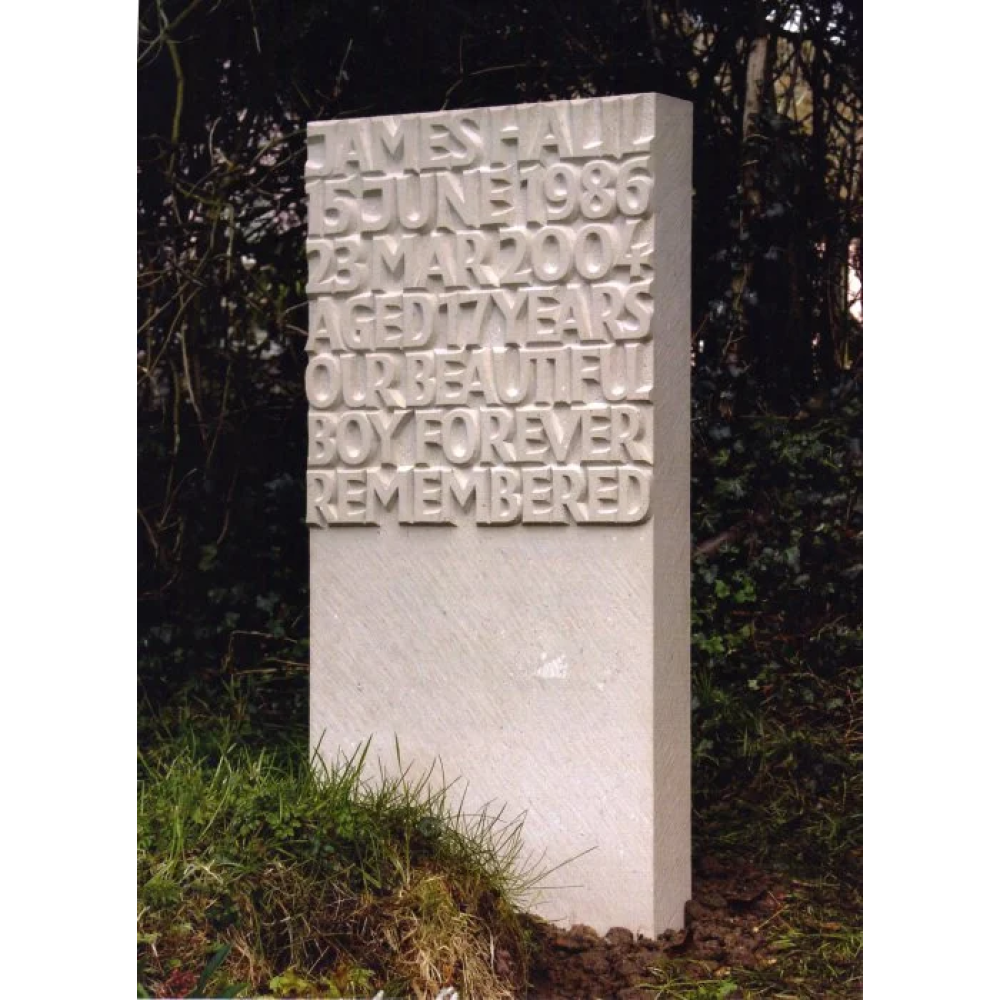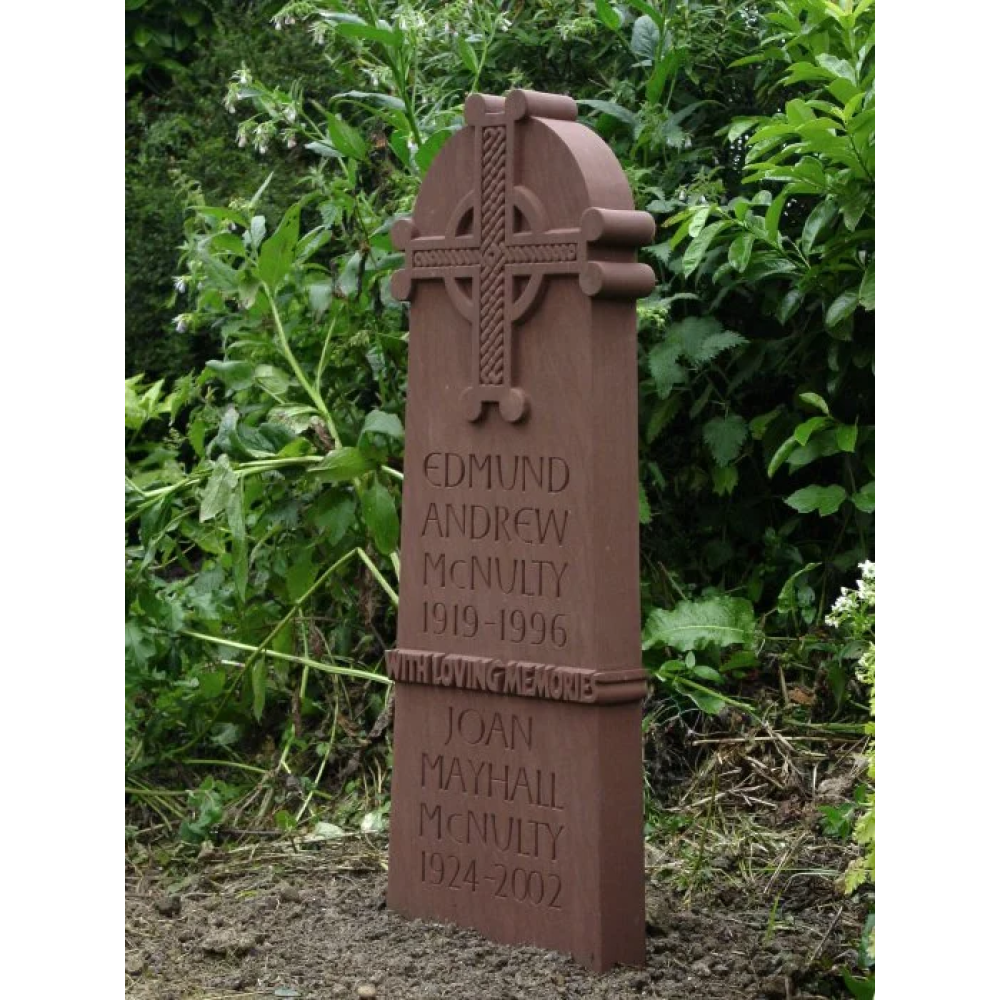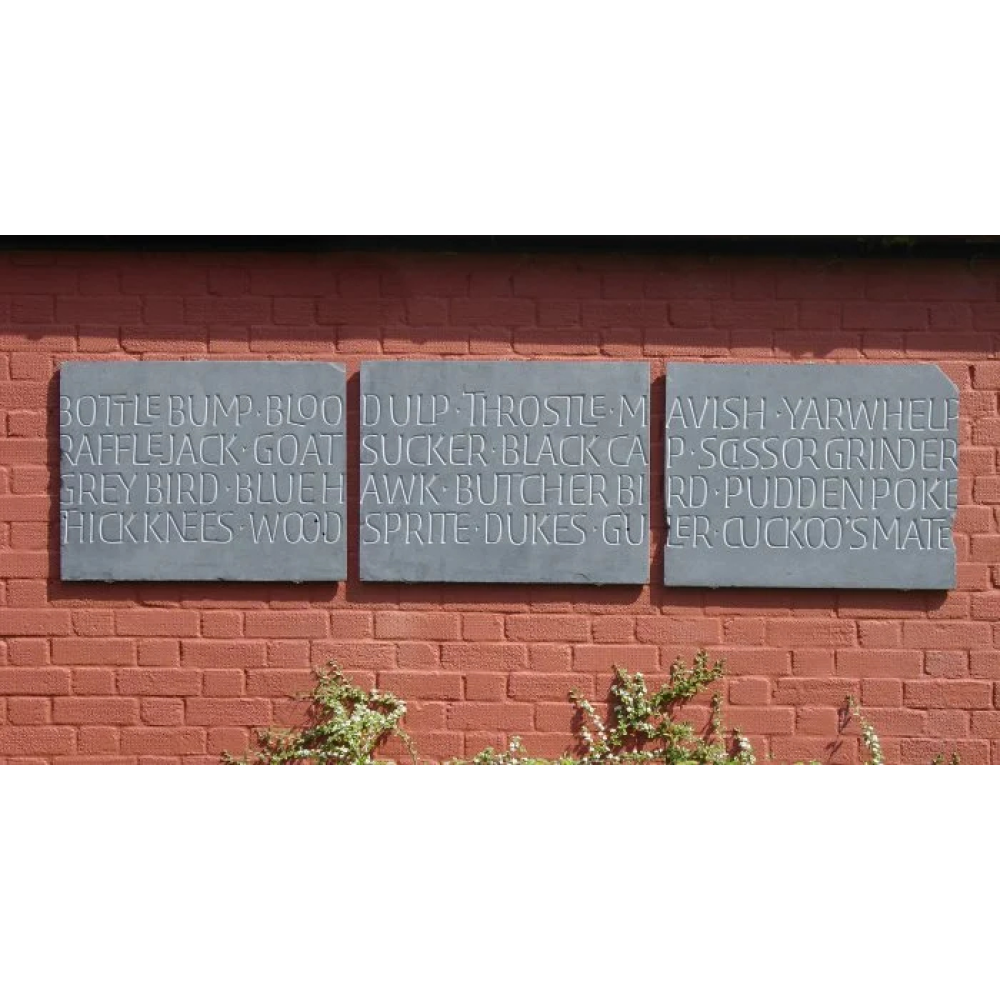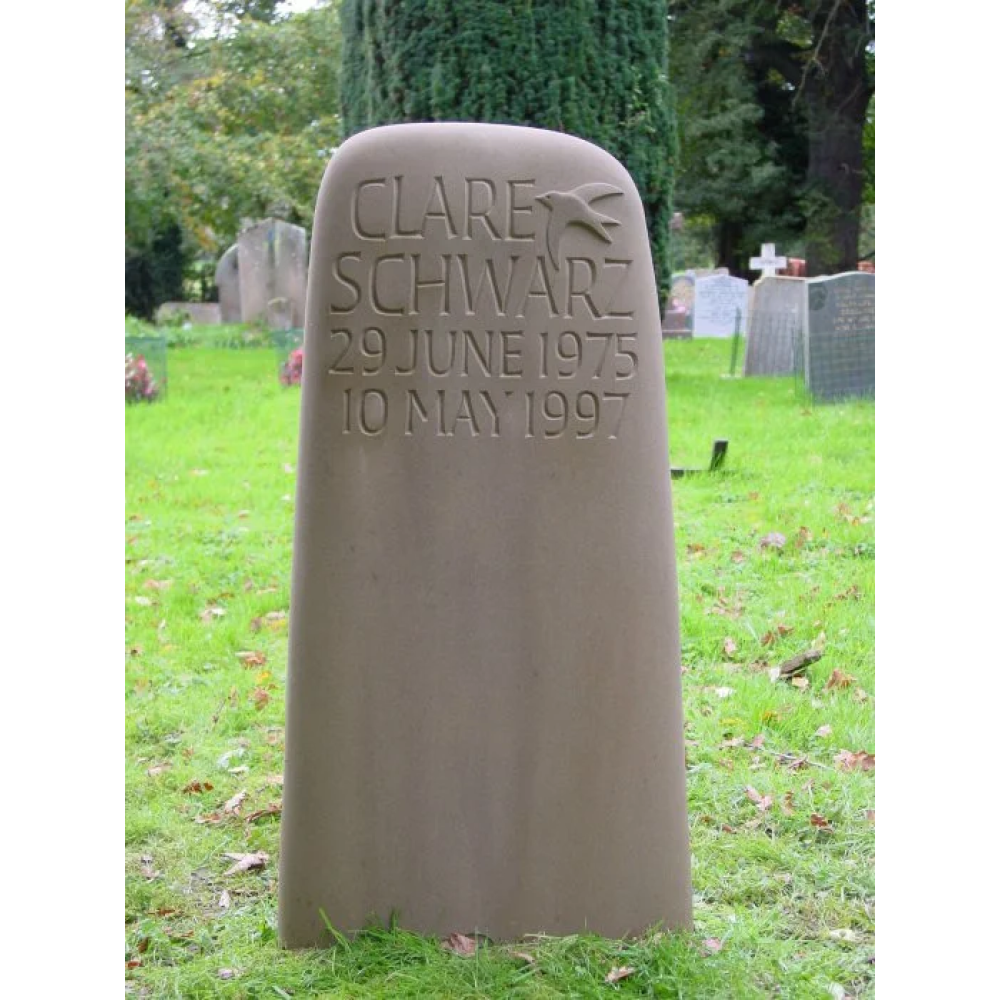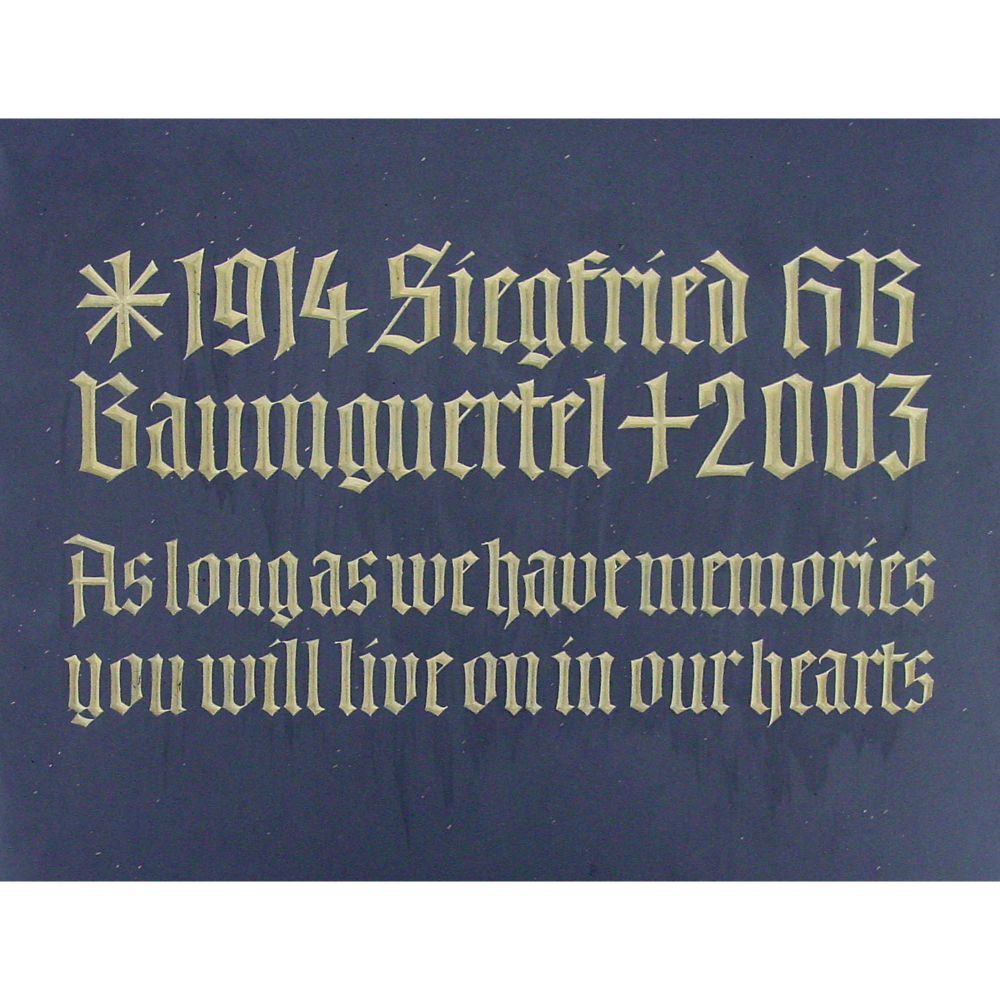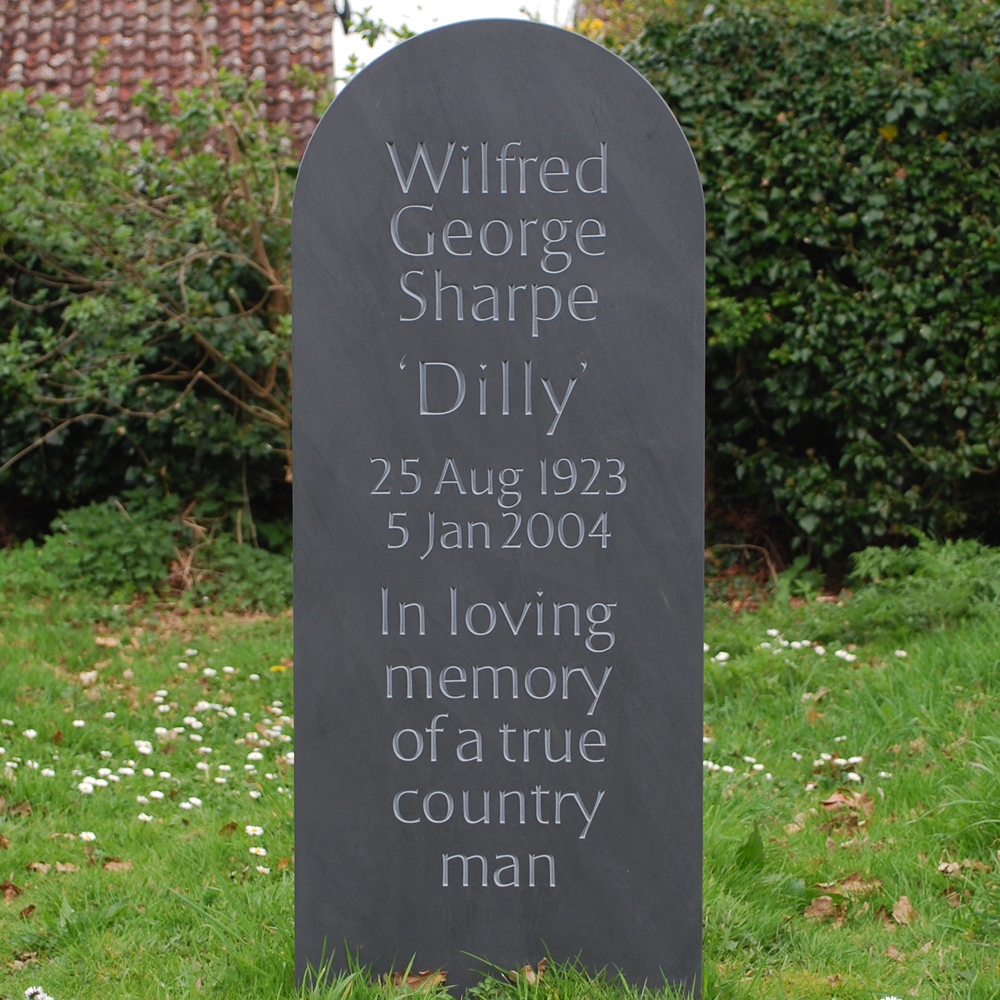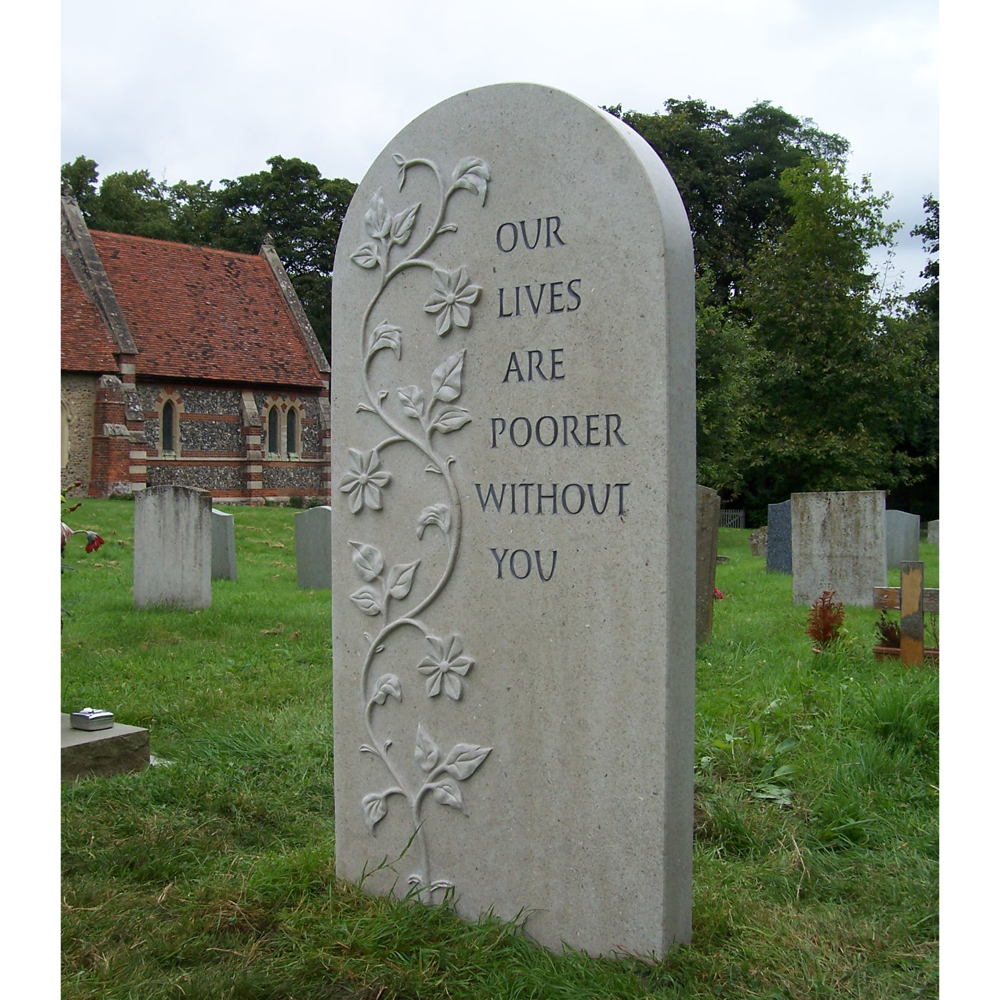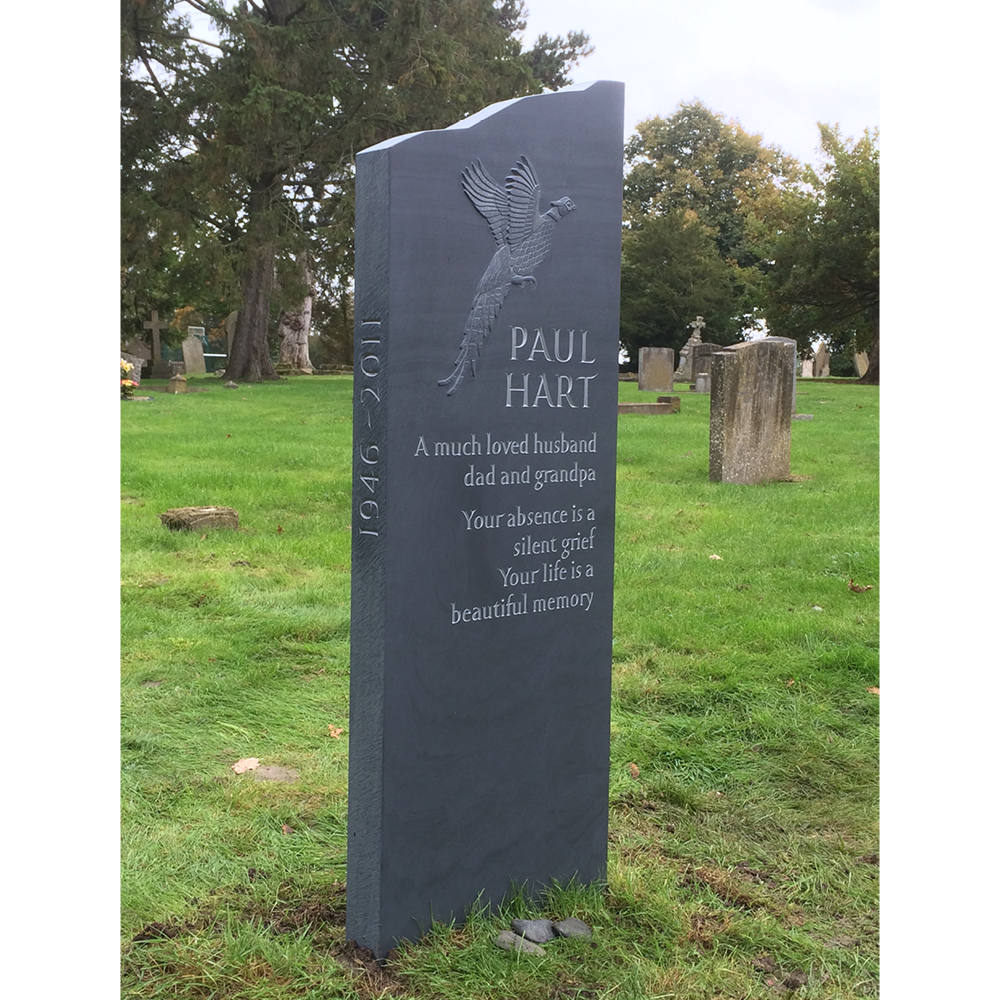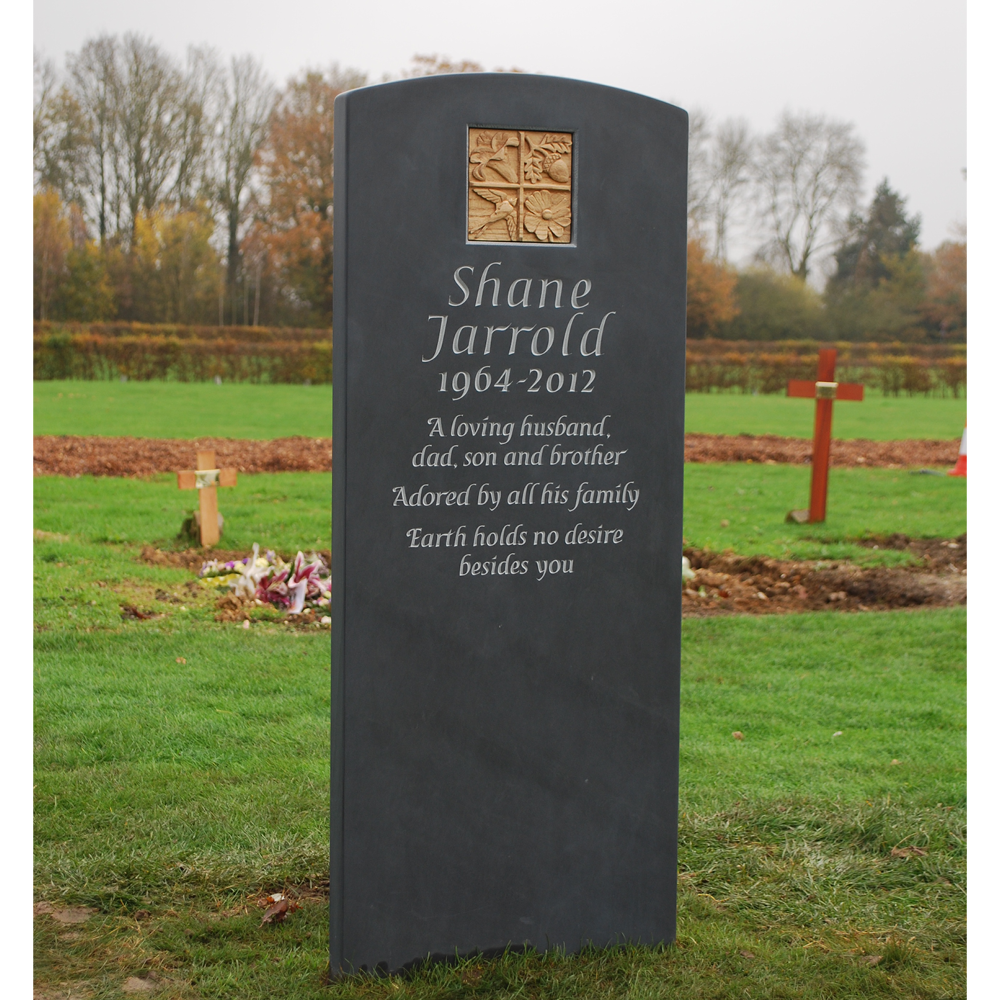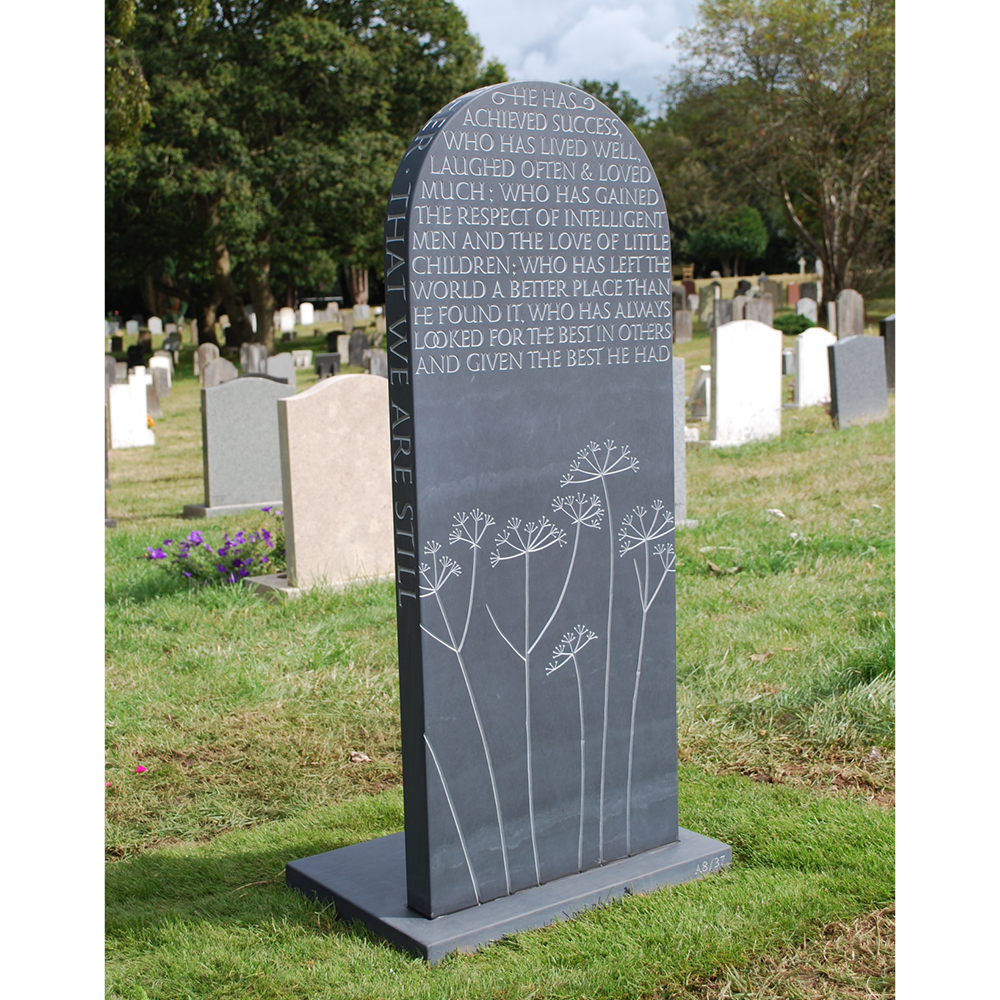
Stuart is a Suffolk based craftsman who carves strong, lasting letters in both stone and wood.
Very few lettering craftsmen can be said to have had a traditional apprenticeship in recent times. After leaving 6th Form college in 2002 Stuart began a two year Lettering Arts Trust apprenticeship with Gary Breeze funded by the Jerwood Foundation. His formal training continued for a further three years and he continues to work as Gary’s assistant whilst developing his own practice.
He has worked on numerous major public art projects throughout the UK and abroad including the Lovers’ Arch at Glasgow Caledonian University, the Romsey Charter Stone, Christ Church Fountain in Oxford, and the V&A grand entrance donor recognition scheme.